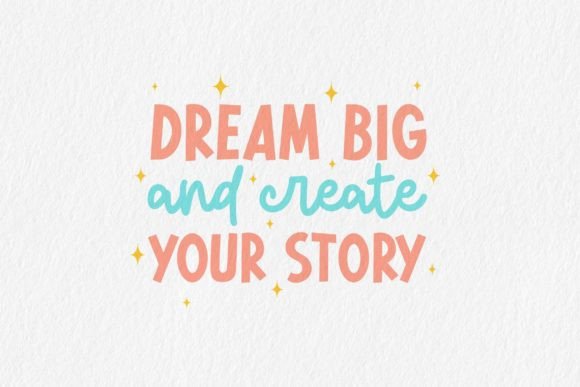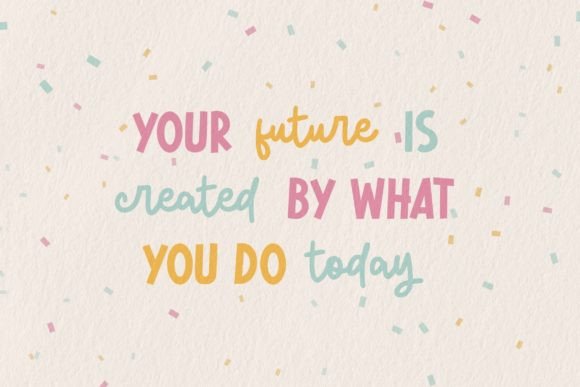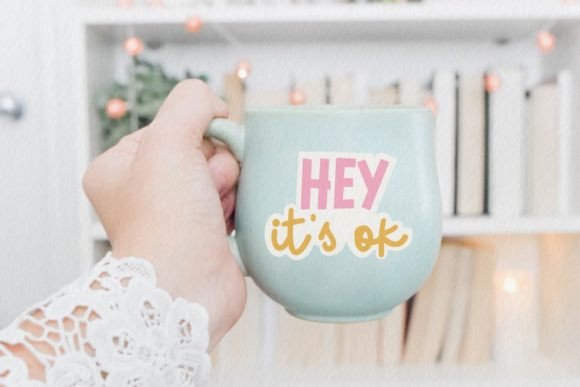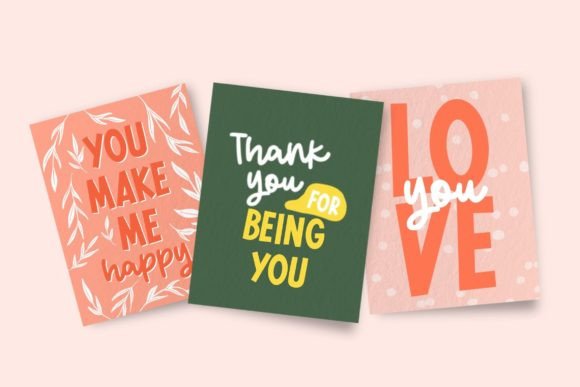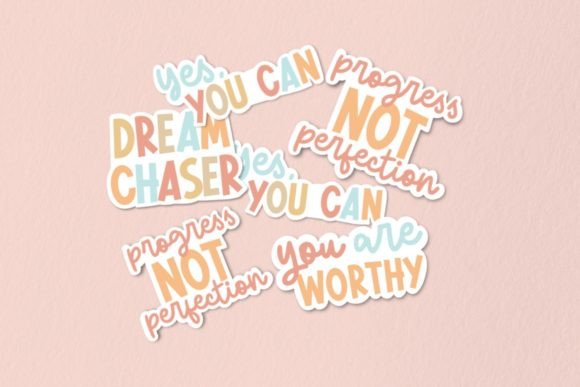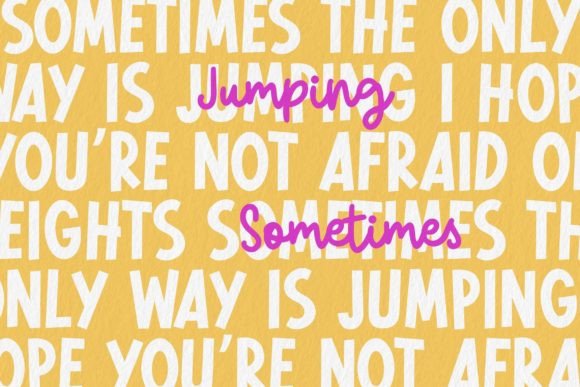
Unlocking Creativity: The Power of Awesome Everyday Duo Font
Have you ever been stuck in a creative rut, desperately searching for the perfect font to bring your project to life? We’ve all been there. But what if I told you that the solution lies in a playful, handwritten duo that’s ready to take your designs to the next level?
Introducing the Awesome Everyday Duo Font, a match made in heaven between a charming handwritten script and a fun sans serif companion. This dynamic duo is specifically designed to add a touch of whimsy and happiness to any project, making it perfect for stickers, greeting cards, logos, posters, and more. With the Awesome Everyday Duo Font, designers can now create visually appealing and engaging content that resonates with their audience.
Awesome Everyday Duo Font Key Features
- Font Family: Awesome Everyday Duo is a unique font family consisting of two fonts, each with its own distinct style.
- Unique Characteristics: The Awesome Everyday Duo font family features a mix of modern and classic styles, with subtle nuances that make each font unique and visually appealing.
Designer Review: Awesome Everyday Duo Font
As a designer, I’ve had the chance to work with the Awesome Everyday Duo Font, and I must say, it’s a solid addition to any font collection. ✨
Here are some of the things that really work well:
- Legibility: This font is incredibly easy to read, even at small sizes, making it perfect for body text and readability-heavy designs.
- Variety: The duo aspect of the font offers a great contrast between the two styles, allowing for a lot of creative freedom when designing.
- Clean lines: The clean lines and simple design make it easy to pair with other fonts and create a cohesive look.
However, there are a few limitations I’ve encountered:
- Lack of expressiveness: While the font is great for everyday use, it may not be the best choice for projects that require a lot of personality or flair.
- Limited italic options: I found that the italic options were a bit limited, which can be a drawback for designers who like to emphasize certain text.
Overall, I’d say the Awesome Everyday Duo Font is a great choice for everyday use, but it may not be the best fit for more creative or expressive projects. With a little imagination and experimentation, however, it can still be a valuable addition to your font collection.
Tips for Getting the Most Out of Awesome Everyday Duo
Use Awesome Everyday Duo for headings and titles to add a touch of elegance and sophistication to your designs.
Pair it with a clean sans-serif font for body text to create a balanced and harmonious design.
Experiment with different font sizes and colors to add emphasis and visual interest to your designs.
Use Awesome Everyday Duo for:
• Headings and titles
• Logos and branding
• Menus and navigation
• Quotes and captions